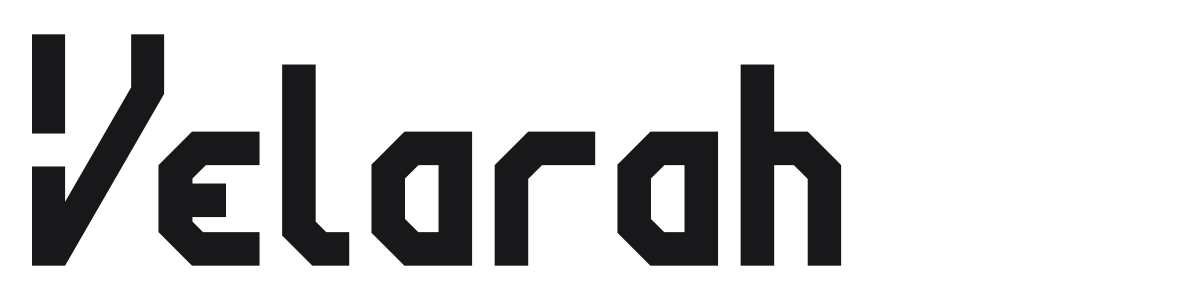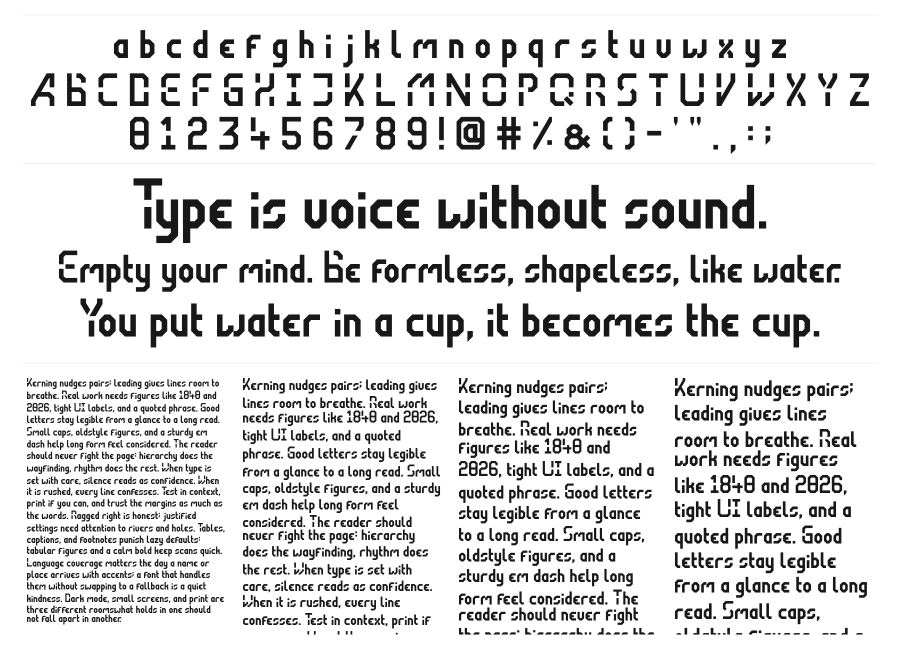
Velarah
Velarah is a bold geometric techno face built entirely from angular modules, with 45-degree diagonal cuts substituting for every curve. The result is a dense, faceted texture that reads as mechanical and futuristic without leaning on clichéd LCD aesthetics. Strong at large sizes where the angular construction detail can register fully.